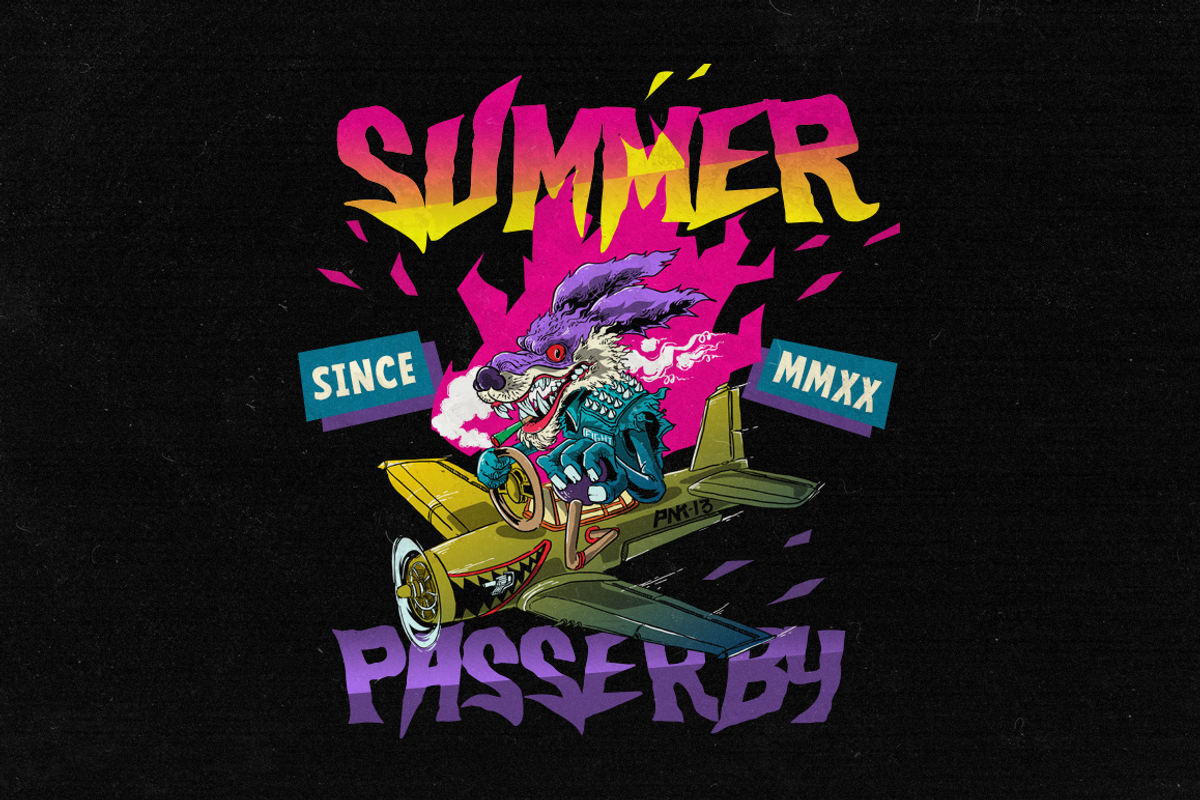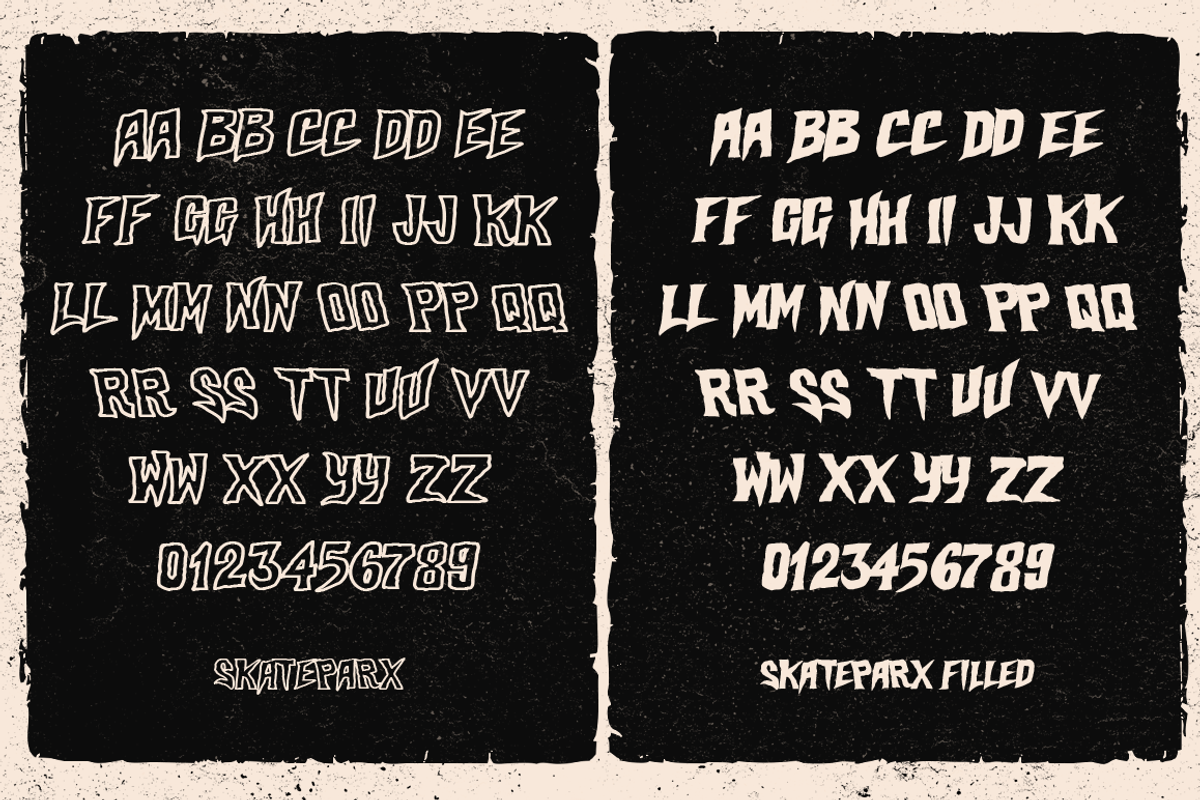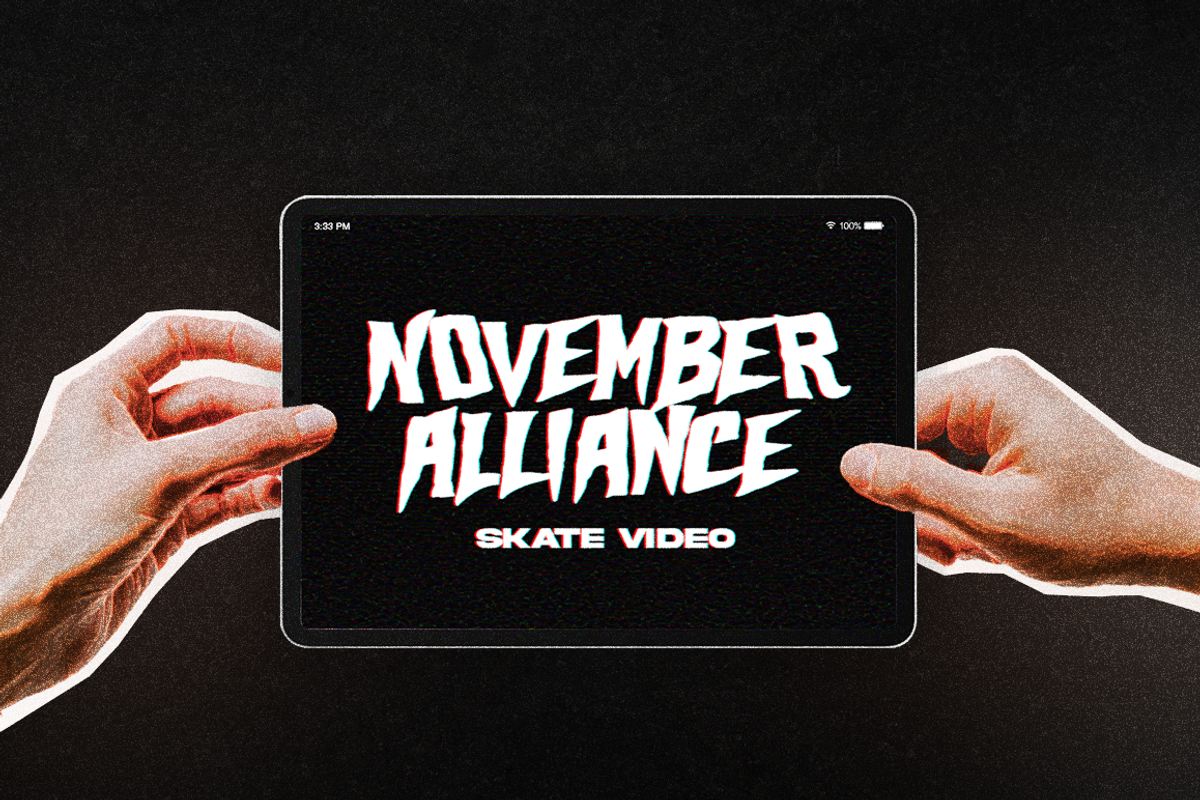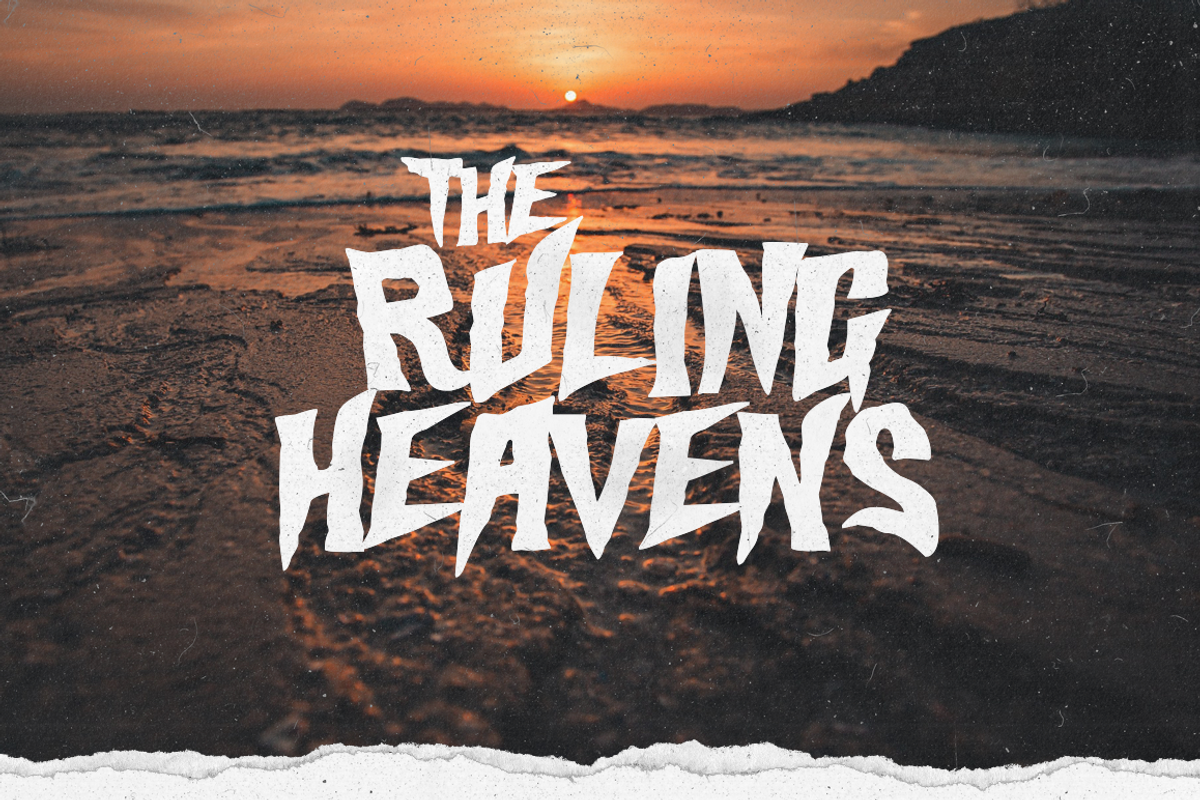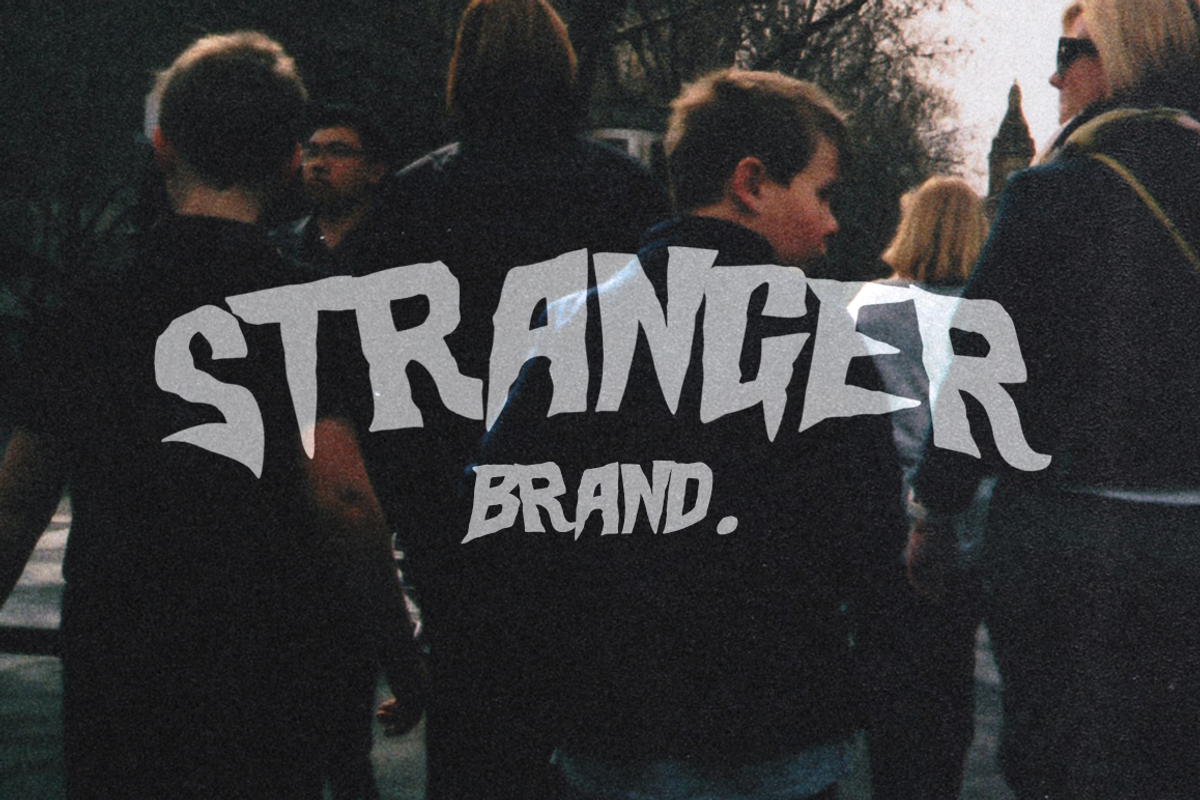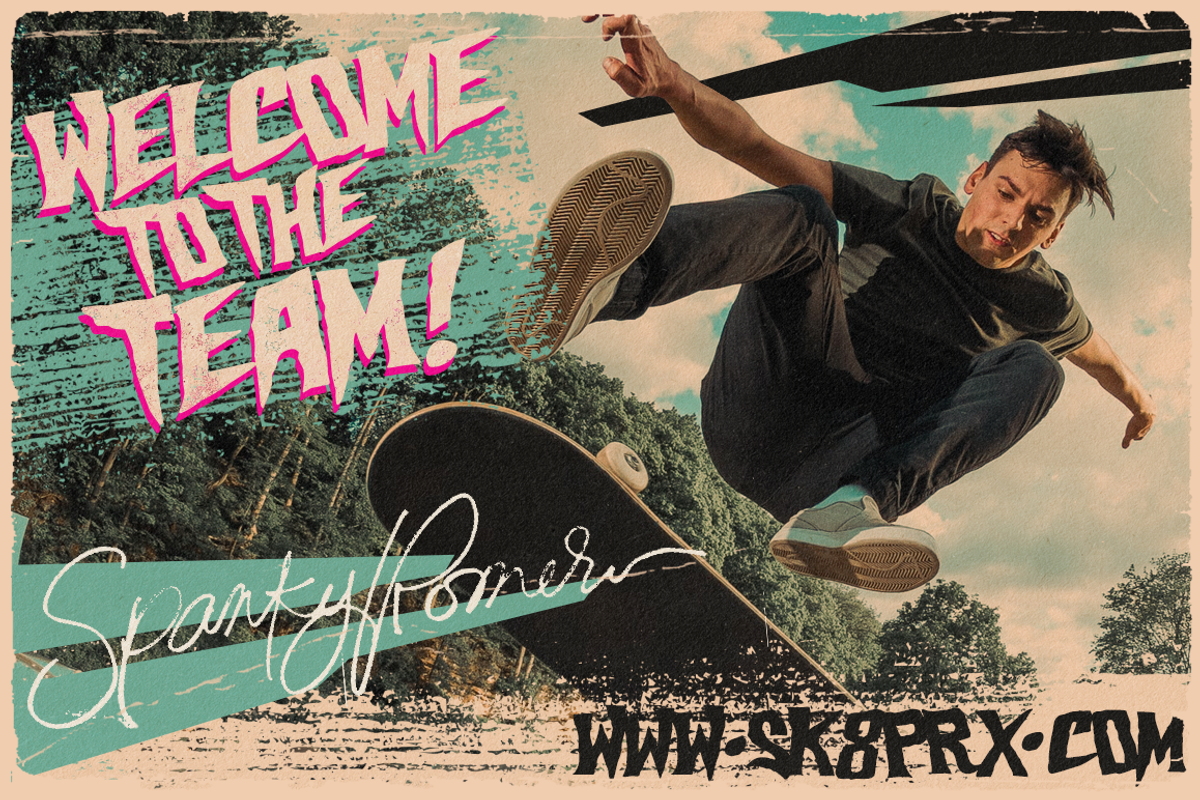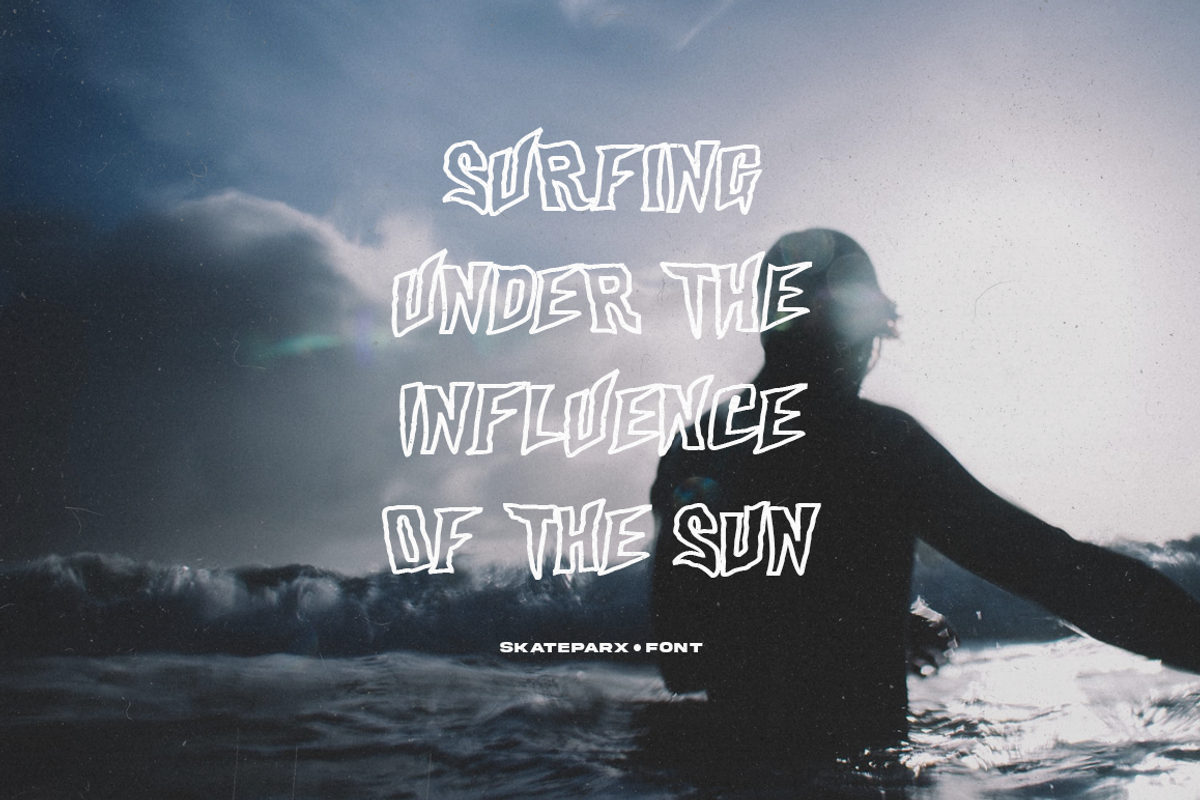
Skateparx - Typeface
Freedom, Liberty, Skateparx!
An old-school look recreated for modern branding. Skateparx is the ultimate font for any given project. Inspired by old magazines and classic videos. Each glyph were given an uneven weights but with uniform baseline. Feel those times when printed magazines and raw sports videos were the obsession. Make that fun and thrill designs using Skateparx!